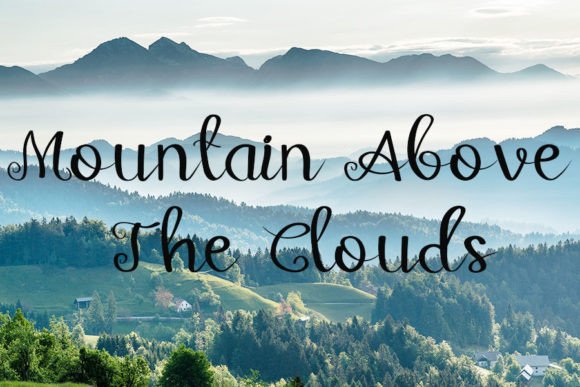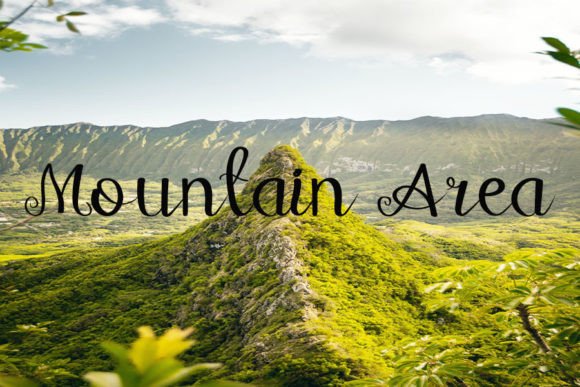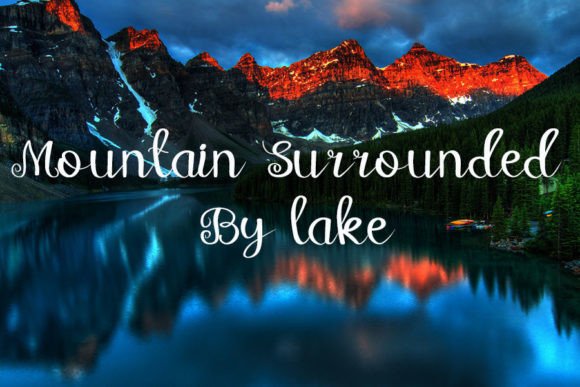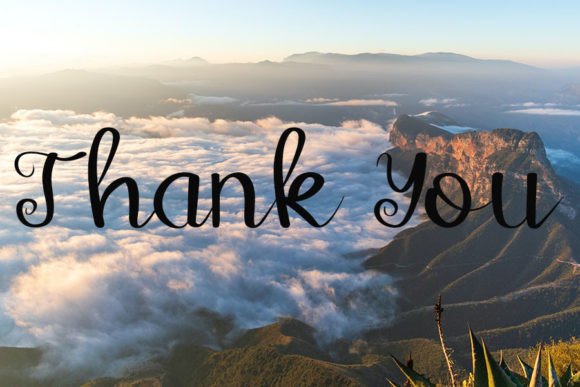
Hi Peak Font
About Hi Peak Font
“Hi Peak” is not just a font; it’s a neat and beautiful handwritten typeface described by an elegant touch. Perfect for a variety of projects, this font invites you to fall in love with its incredibly distinct and timeless style. Let it be the key element that elevates your designs and allows you to create truly spectacular visual experiences!
The elegance of “Hi Peak” is evident in its distinct and handwritten style, which adds a touch of sophistication to your text. The font is crafted with precision, making it suitable for a wide range of applications. Whether you’re working on branding, invitations, or other creative projects, this font brings a timeless quality to your designs.
The versatility of “Hi Peak” is showcased by its adaptability to different projects and design needs. Its neat and beautiful nature makes it a perfect choice for projects that require a polished and elegant aesthetic. This font becomes a reliable asset for designers seeking a typeface that can enhance the visual appeal of their work.
Adding “Hi Peak” to your font collection becomes an invitation to explore the elegant and distinct side of design. The font stands out as a beautiful asset that can elevate the overall aesthetics of your projects. Let it be the font that brings a timeless and sophisticated style to your branding, invitations, and various other creative endeavors.
In summary, “Hi Peak” is more than just a font; it’s a neat and beautiful handwritten typeface designed to be an elegant asset in your collection. Embrace its distinctiveness, and confidently add it to your font library. “Hi Peak” is an invitation to explore the spectacular and timeless possibilities it brings to your design projects.